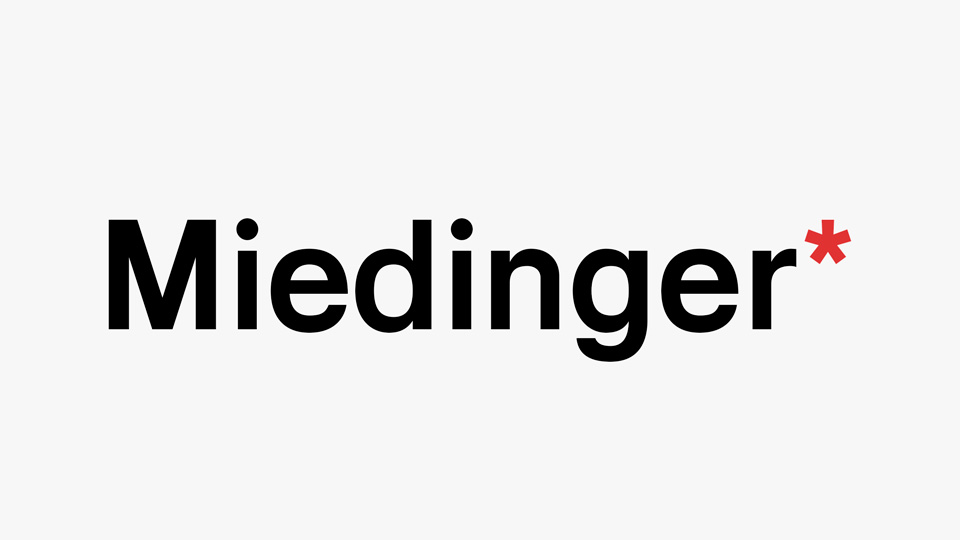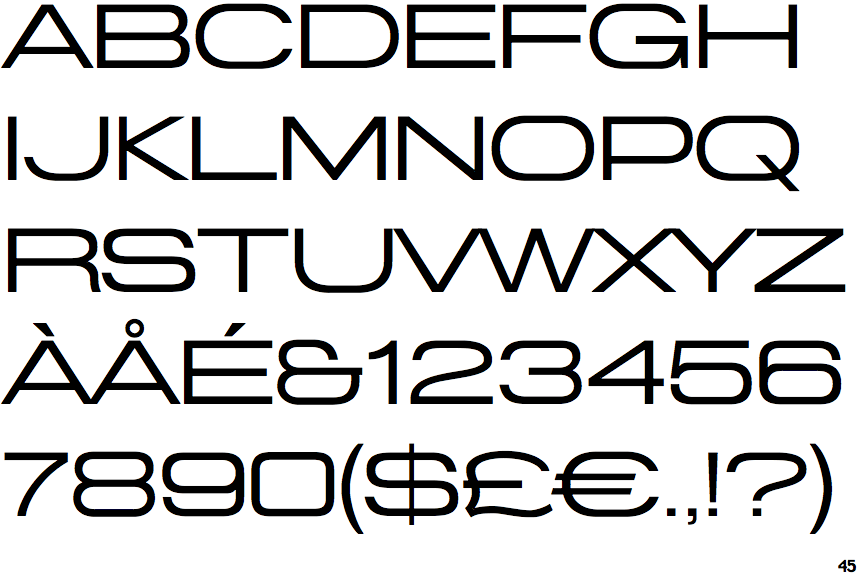
Cool Miedinger Font Ideas
Initially I Set Out To Make As Faithful A Replicant Of Helvetica As Possible.
Web if you recognize the font from the samples posted here don't be shy and help a fellow designer. It’s a clean and legible typeface, which is well suited. The miedinger package comes in all popular font formats, and supports western, central and eastern european languages, as well as esperanto, maltese, turkish and celtic/welsh.
Web miedinger* sans serif font. Web buy fonts from the max miedinger. The great hype of swisspalooza ’07 prompted a look at max miedinger, the designer of neue haas grotesk (later renamed to helvetica).
Miedinger* Is Based On The Work Of Max Miedinger.
I (ewon rael) have since had a change of heart and. Miedinger was designed by max miedinger, patrick griffin and published by canada type. Web this digital version introduces four new weights, ranging from thin to medium, alongside the bold original.
Miedinger Contains 5 Styles And Family Package Options.
Web miedinger* is based on the work of max miedinger. Web download miedinger* typeface, a sans serif font family with four styles based on the helvetica by max miedinger. Opentype, truetype, postscript available for mac and pc.